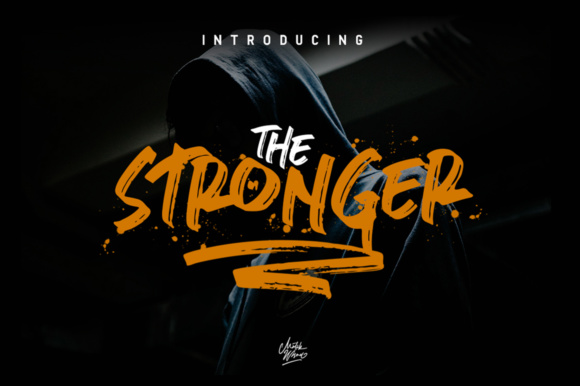
Introducing Stronger Font, the ultimate typographic turbo-boost for all your creative endeavors! Created by the talented MLKWSN studio, this supercharged, street-wise brush font is designed to inject energy and vibrancy into your projects.
With its attention-grabbing quick strokes and sharp details, Stronger Font is perfect for a wide range of applications. Whether you're designing a captivating logo, eye-catching apparel, inspiring quotes, or stunning product packaging, this font will take your creations to the next level.
What sets Stronger Font apart is its versatility. The font family, display, offers two incredible variations that cater to your specific needs. The Stronger Regular is the standard version, offering a powerful and impactful presence for titles and logos. On the other hand, the Stronger Swash adds an extra touch of creativity, allowing you to incorporate cool underlines or splashes of paint to enhance your text.
But that's not all! With Stronger Font, you also get access to a unique feature that will truly make your designs stand out. Type any letter from A to Z using this font, and you'll unlock a collection of captivating swashes that perfectly complement the font. Additionally, you'll receive an extra brush for Photoshop, giving you even more creative freedom.
Imagine the impact of your brand with the bold and energetic Stronger Font. Let your design speak volumes, captivating your audience with its dynamic and expressive nature. Embrace the power of this font to create a lasting impression and leave your competitors in awe.